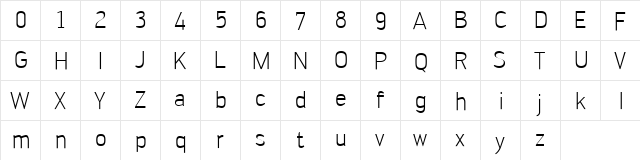
Engel Light ltd Light Font Preview
Engel Light ltd Light
Engel Light ltd Light Font Details
| Foundry | Soffi Beier Published by Die Gestalten Verlag 2005 |
| Designer | Soffi Beier |
Design Context for Engel Light ltd Typeface
Engel Light ltd is a composed and adaptable typeface that performs quietly and consistently across a wide range of design contexts. The delicate stroke weight brings airiness and refinement to layouts.